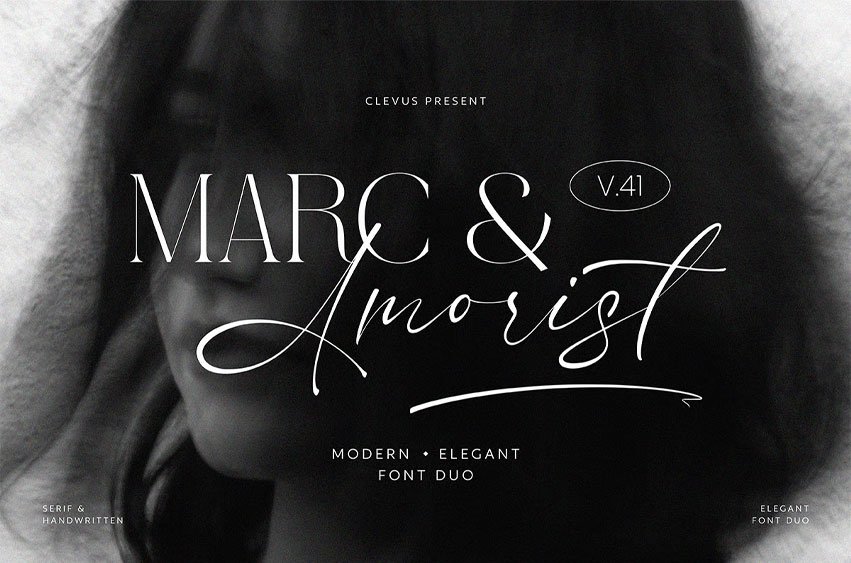
Marc & Amorist Font
Marc & Amorist Font Duo is a unique font design consisting of a combination of a classy serif font and a classic script handwritten font. It is specifically created to cater to the design needs of elegant and feminine themes, such as in magazines or branding materials. The serif font has a classic and timeless character, while the script font is designed with a personal and human touch, giving a modern and creative feel. This font duo is perfect for use in various design media such as magazines, books, posters, brand identities, logos, and more. By choosing Marc & Amorist Font Duo, you can add a touch of professionalism and modernity to your designs, while also providing quality and character to every design you create.